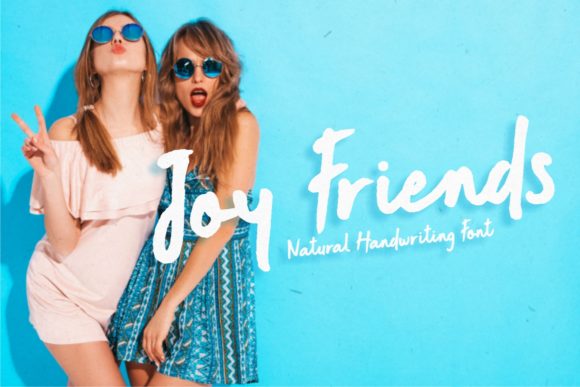
Adorn your designs with the enchanting Joy Friends Font, a script font family that exudes elegance and playfulness. Created by the talented putracetol, this font is a visual masterpiece, meticulously designed to capture the essence of joy and friendship.
With its graceful curves and whimsical charm, Joy Friends Font adds a touch of magic to any creative project. Its versatile nature makes it perfect for a wide range of applications, from heartfelt invitations and playful greeting cards to eye-catching social media posts and stunning website designs.
Imagine the delight on your loved ones' faces as they receive a heartfelt message penned in the enchanting Joy Friends Font. Its delicate strokes and cheerful personality will undoubtedly bring a smile to their faces, making your words even more meaningful.
Unleash your creativity and let Joy Friends Font transform your digital projects into captivating works of art. Its impeccable style and charm will elevate your designs to new heights, leaving a lasting impression on your audience.
Elevate your designs and make a statement with Joy Friends Font. Its unique character will add a touch of sophistication and charm to your projects, setting them apart from the ordinary.